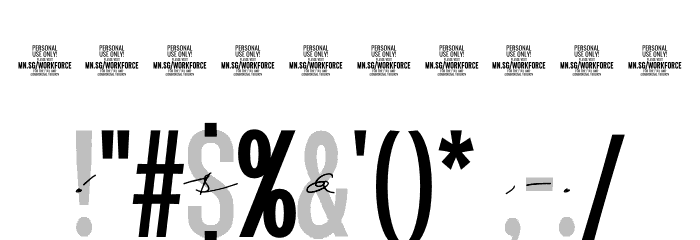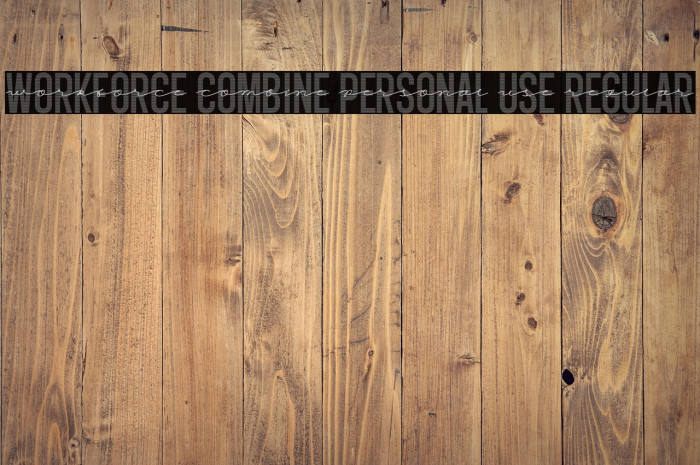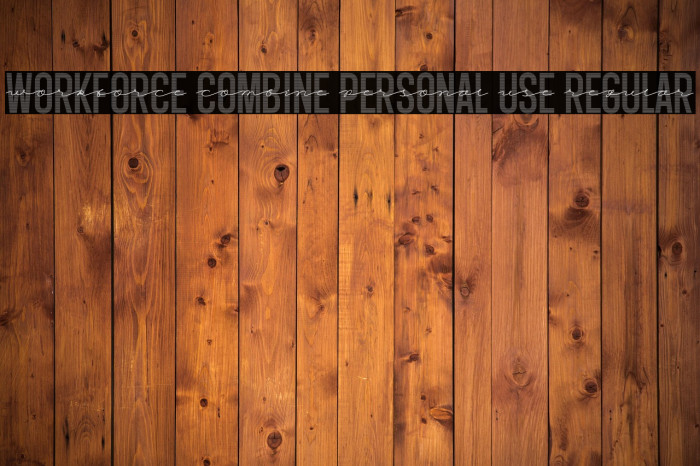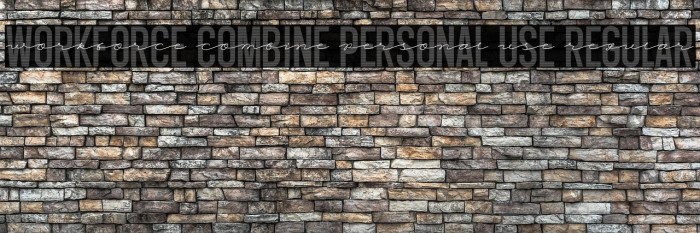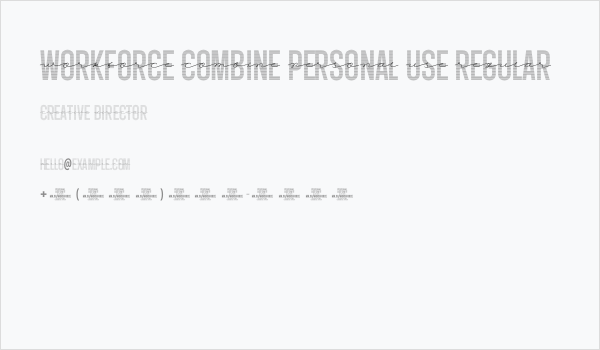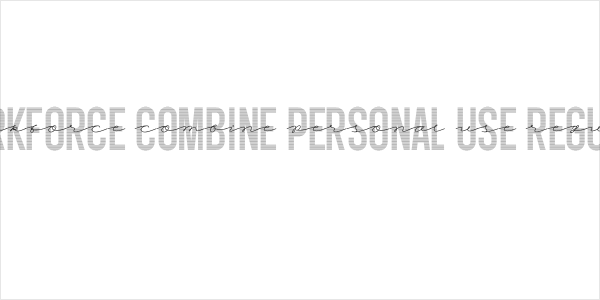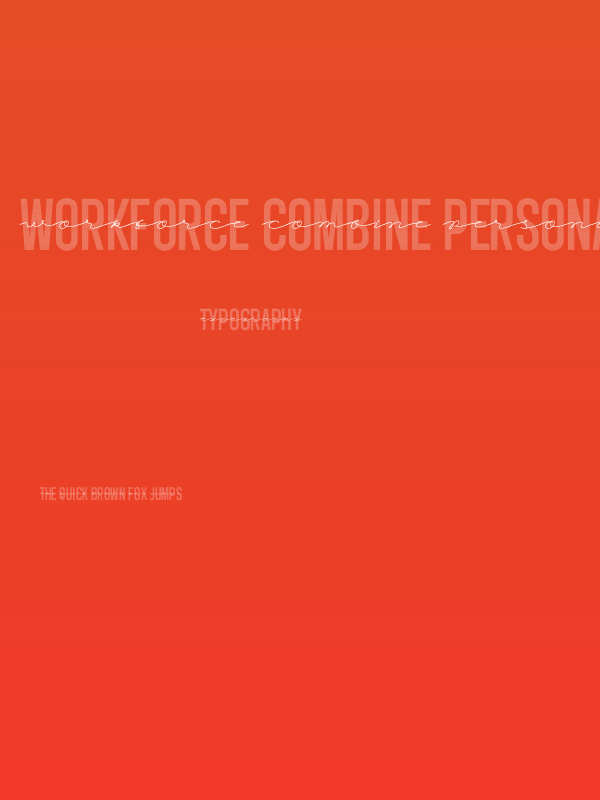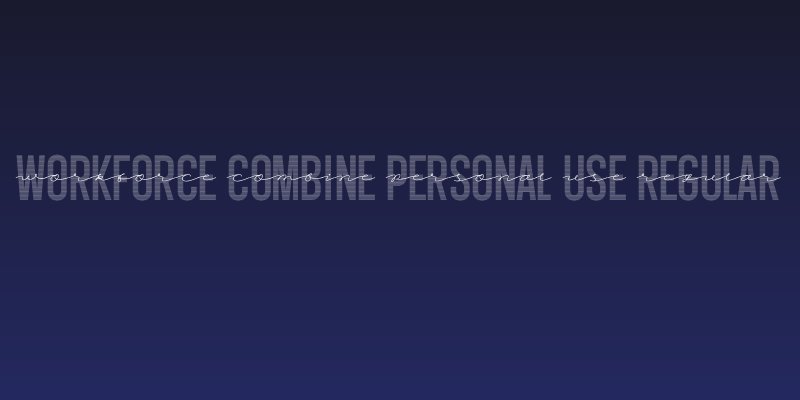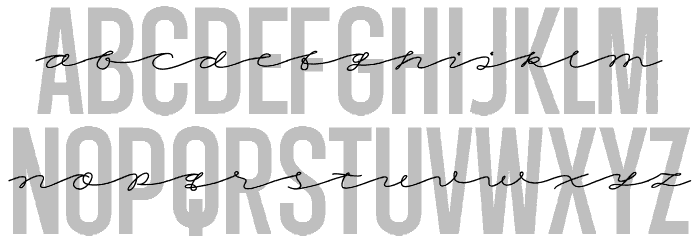
Workforce Combine PERSONAL USE Regular Font
Workforce Combine PERSONAL USE Regular Description
This font combines a bold, geometric sans-serif style with a delicate, cursive script overlay. The sans-serif letters are robust and modern, featuring clean lines and uniform stroke widths, which provide a strong and stable appearance. In contrast, the cursive script is elegant and flowing, with a handwritten quality that adds a personal touch. The juxtaposition of these two styles creates a unique and versatile typeface that can be used in various design contexts. The uppercase letters are prominent and commanding, while the lowercase script offers a softer, more intimate feel. The numerals and special characters maintain the boldness of the sans-serif style, ensuring consistency throughout the font.
| Proposed Projects | Ideal for branding, logo design, invitations, and editorial layouts where a mix of modern and personal touch is desired. |